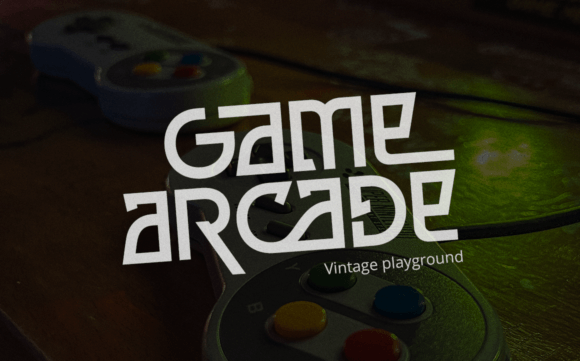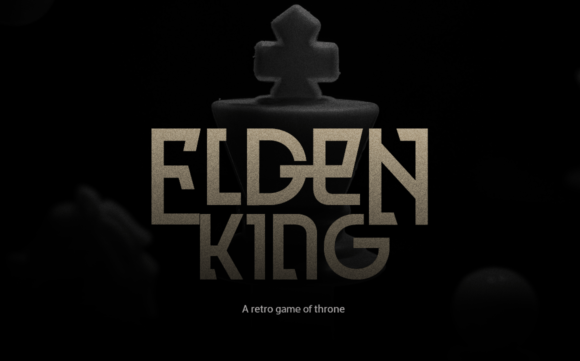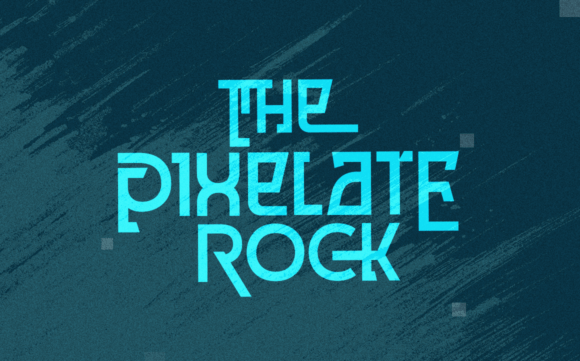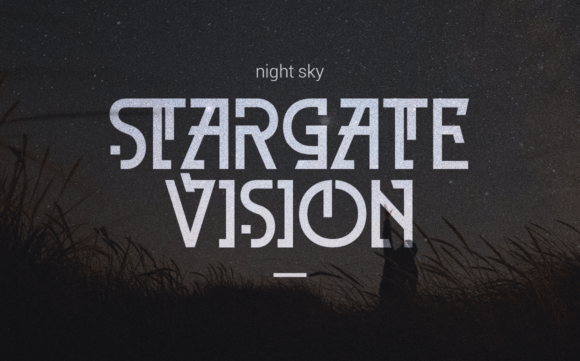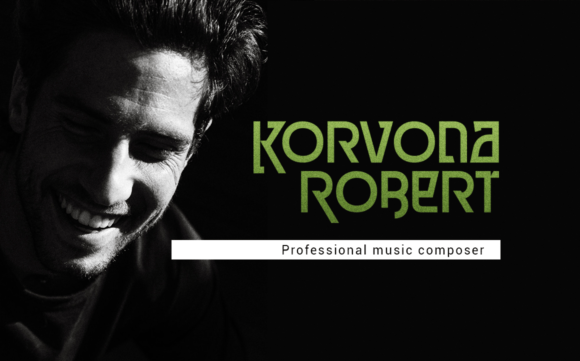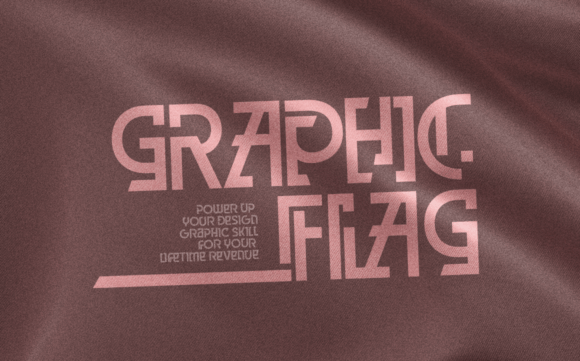
The Retro-Futuristic Grisha Font: A Designer’s Dream Come True
I’ll never forget the design project that led me to discover the Grisha font. I was working on a logo design for a tech startup, and I needed a font that would convey a sense of innovation and forward-thinking. After hours of scouring font libraries and trying out different combinations, I stumbled upon Grisha. Its unique blend of retro and modern elements instantly caught my eye, and I knew I had found the perfect fit.
An Honest Review: What I Love and What I Don’t
- ✅ Unique Glyphs: Each glyph in Grisha has a distinct look, making it perfect for creating visually interesting text.
- ✅ Bold and Condensed: The font’s bold and condensed style makes it ideal for headlines, titles, and logos.
- ✅ Tight Kerning: The kerning is spot on, ensuring that the text looks clean and professional.
- ✅ Versatile: Grisha can be used for a wide range of projects, from logotypes and logos to flyers, magazines, and even invitations.
The Not-So-Good Stuff 🤔
- ⚠️ Limited Upright Style: While Grisha comes in bold and condensed styles, the upright style can be a bit limited in its use.
- ⚠️ Glyph Overload: With so many unique glyphs, it can be overwhelming to navigate the font’s character set.
Grisha was inspired by the futuristic and retro-futuristic designs of the 80s and 90s. The designer, who wishes to remain anonymous, was fascinated by the era’s blend of analog and digital elements. They wanted to create a font that would capture the essence of this era, while also being modern and versatile. The result is Grisha, a font that is both nostalgic and forward-thinking.
Q: What is Grisha font best used for?
A: Grisha font is best used for logotypes, logos, titles, and headlines. Its bold and condensed style makes it perfect for creating visually striking text.
Q: Does Grisha font come with a wide range of glyphs?
A: Yes, Grisha font comes with a wide range of glyphs, including unique and stylistic alternates. This makes it perfect for creating visually interesting text.